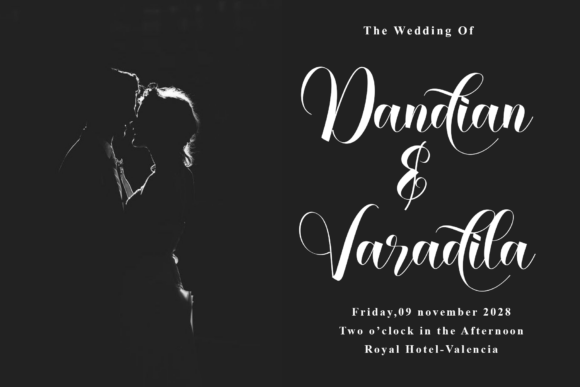
Introducing Winterday1 Font: The Epitome of Modern Handwritten Elegance
In the realm of typography, few fonts manage to strike a balance between modernity and elegance. Winterday1 Font is one such exceptional typeface that seamlessly blends soft curves with bold elegance, making it a standout in the world of handwritten fonts. Its generous weight and stylish swashes render it ideal for a variety of applications, from statement logos and personal branding to upscale packaging and elegant stationery.
Key Features of Winterday1 Font
- Modern Handwritten Style: Winterday1 boasts a contemporary handwritten aesthetic that exudes both sophistication and charm.
- Balanced Rhythm: The font features a well-balanced rhythm that ensures readability and aesthetic appeal.
- Stylish Swashes: Adding an extra layer of elegance, the swashes in Winterday1 can be used to create visually stunning text pieces.
- Versatile Design: It blends classic handwriting elements with a modern twist, making it suitable for a wide range of design projects.
Ideal Applications for Winterday1 Font
Winterday1’s versatility makes it suitable for numerous design applications. Here are some ideas to get you started:
- Wedding Invitations: Add a touch of romance and elegance to your wedding invitations with Winterday1.
- Branding Projects: Establish a chic and professional brand identity with this sophisticated font.
- Social Media Graphics: Elevate your social media presence with stylish and engaging graphics.
- Product Packaging: Stand out in the market with elegant and refined product packaging.
- Elegant Stationery: Create beautifully designed stationery that reflects your personal or brand style.
Design Tips for Using Winterday1 Font
To maximize the impact of Winterday1 in your designs, consider the following tips:
- Pair with Simplicity: Let Winterday1 be the focal point by pairing it with simple backgrounds or textures.
- Experiment with Swashes: Play around with the swashes to add a unique touch to your text.
- Layering: Don’t be afraid to layer Winterday1 with textures or other design elements to add depth.
- Size Matters: Use Winterday1 in headlines or titles for maximum impact, but also experiment with smaller sizes for varied effects.
Why Choose Winterday1 Font?
Winterday1 is more than just a font; it’s a design statement. Here are reasons why it stands out:
- Elegance and Flair: It adds just the right amount of elegance and flair to any design.
- Professional yet Expressive: Achieve a look that’s both professional and expressive with Winterday1.
- Wide Applicability: From romantic designs to chic brand identities, Winterday1 adapts seamlessly.
Winterday1 Font is a striking modern handwritten typeface that brings a blend of soft curves and bold elegance to the table. Its generous weight, stylish swashes, and balanced rhythm make it an excellent choice for a myriad of design applications. Whether you’re aiming to create a statement logo, design elegant stationery, or build a sophisticated brand identity, Winterday1 offers the perfect combination of professionalism and expressiveness. With its ease of use, thanks to PUA encoding, and its versatile design, Winterday1 is poised to become a favorite among designers looking to add a touch of elegance and flair to their work.
Final Thoughts
Incorporating Winterday1 Font into your design projects can significantly elevate the aesthetic and impact of your work. Its modern yet elegant feel, combined with its versatility and ease of use, makes it an invaluable asset for designers. Whether you’re working on a branding project, creating social media graphics, or designing elegant stationery, Winterday1 provides the perfect blend of style and functionality.